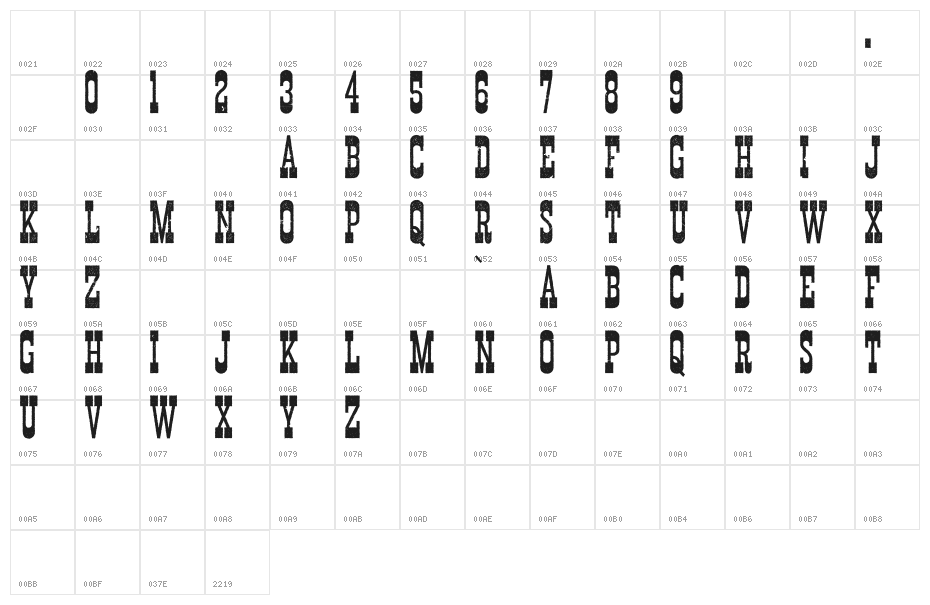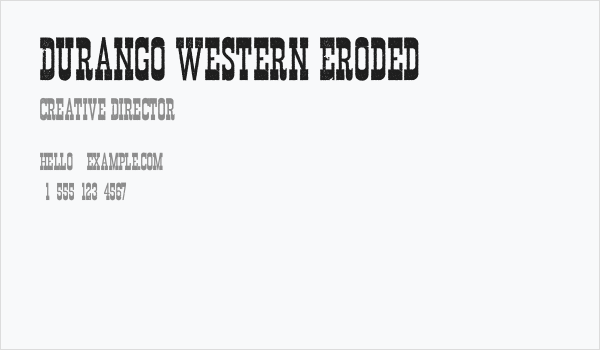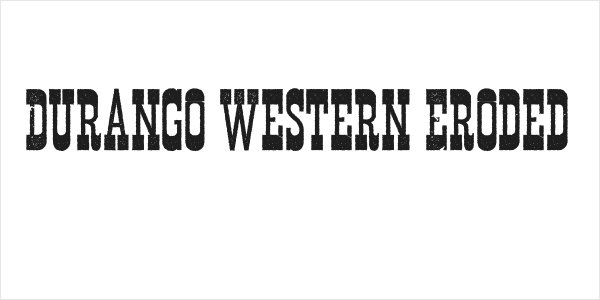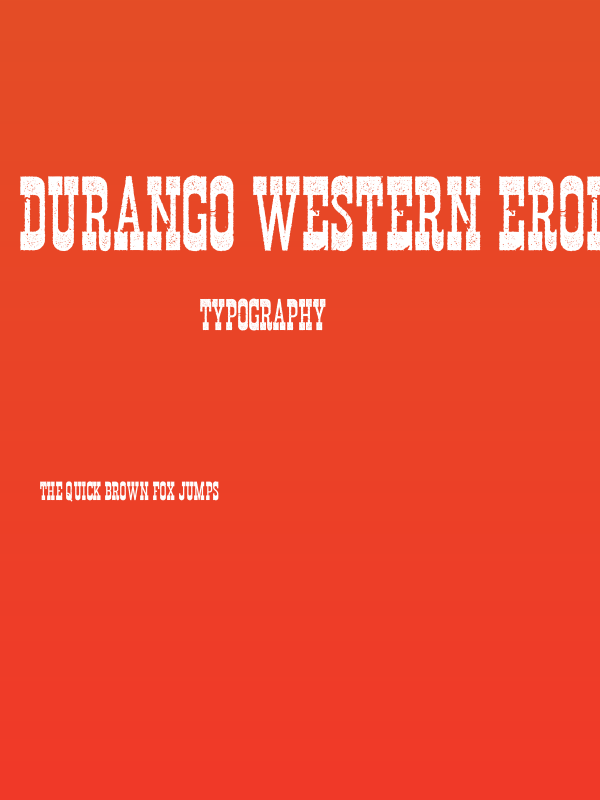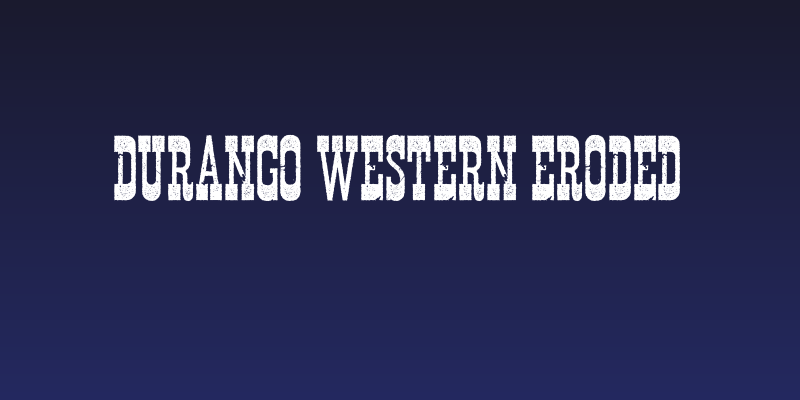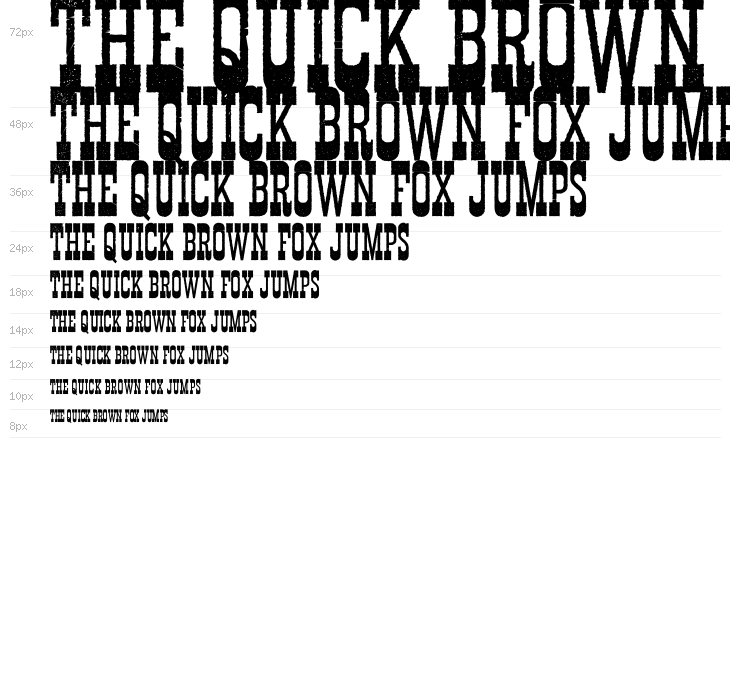
Durango Western Eroded Font
Durango Western Eroded Description
This font exhibits a rugged, distressed appearance reminiscent of the Old West. The characters are bold and heavily eroded, giving them a weathered, vintage look. The uppercase letters are prominent, with a blocky, slab serif style that conveys strength and durability. The numbers and special characters follow the same eroded pattern, maintaining consistency across the font. This design is ideal for projects that require a rustic, historical, or adventurous theme, capturing the essence of a bygone era.
| Proposed Projects | Ideal for Western-themed posters, vintage advertisements, rustic branding, and adventurous book covers. |